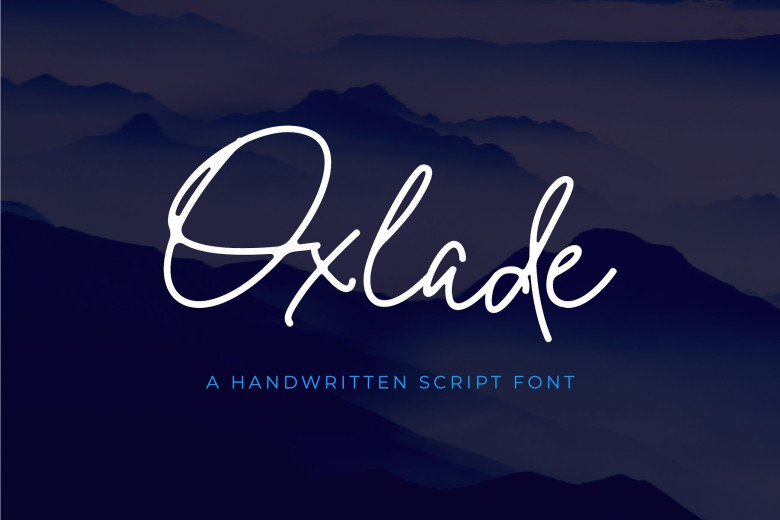
Oxlade Script Font
Introducing the new ‘Oxlade’ script font – A fashionable and awesome new handwriting font script with some sexy stylish extras. Oxlade is an created by yellowline. Oxlade is perfect for branding projects, home-ware designs, product packaging, wedding invitations, magazine headers – or simply as a stylish text overlay to any background image.